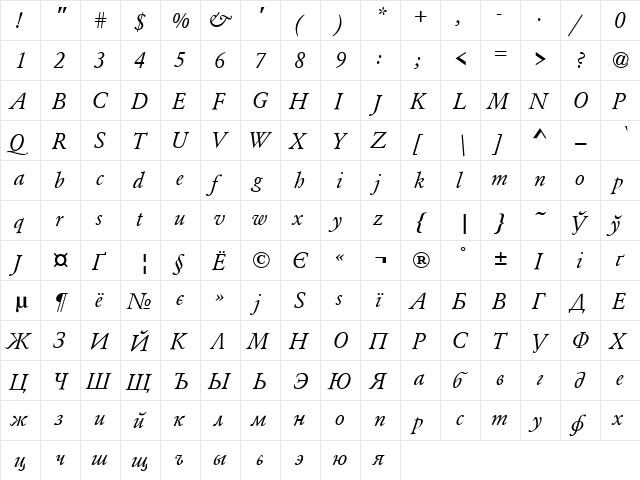
AZGaramondCTT Regular Font Preview
AZGaramondCTT Regular
Design Context for AZGaramondCTT Typeface
AZGaramondCTT offers clean, dependable letterforms without strong stylistic allegiance, making it a practical choice for designers who need flexibility.
Pro Tip: Pair AZGaramondCTT with a font of contrasting weight or personality to build a more expressive typographic hierarchy.